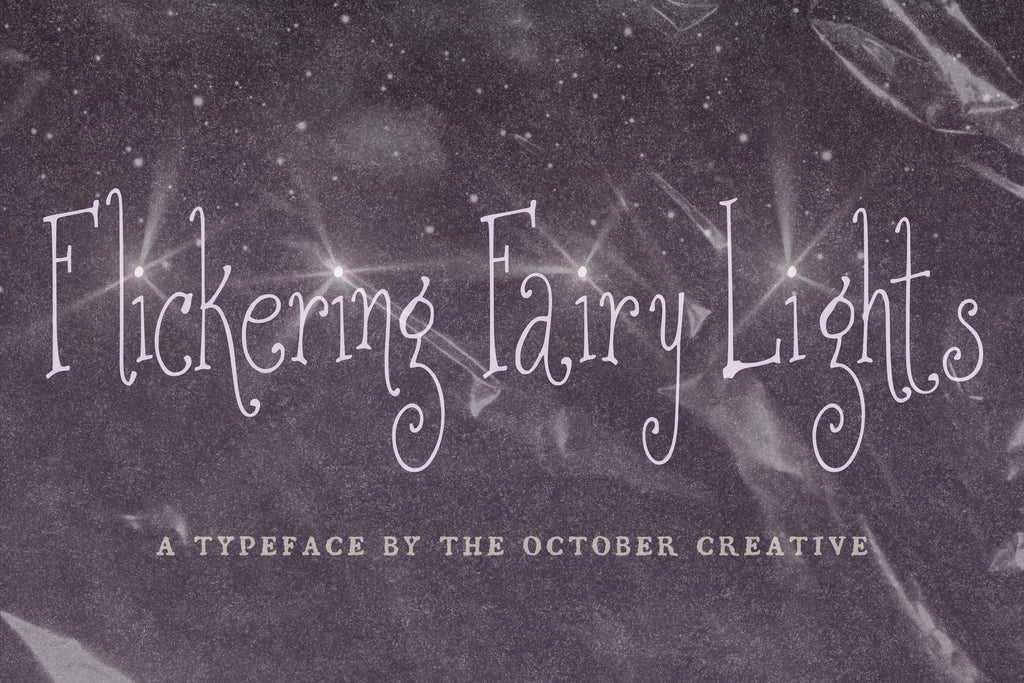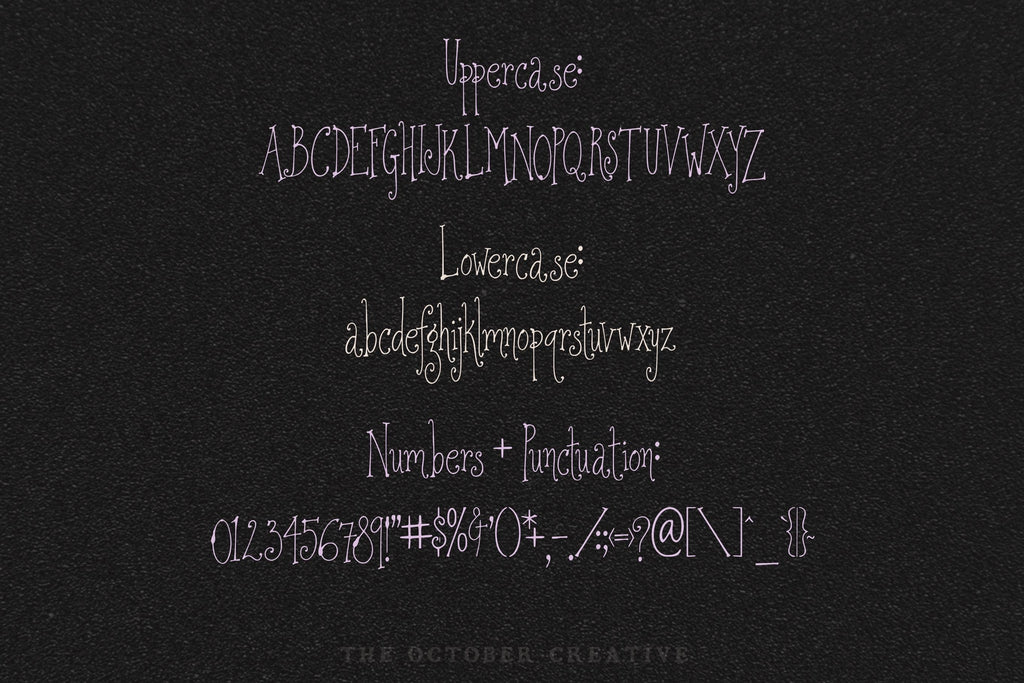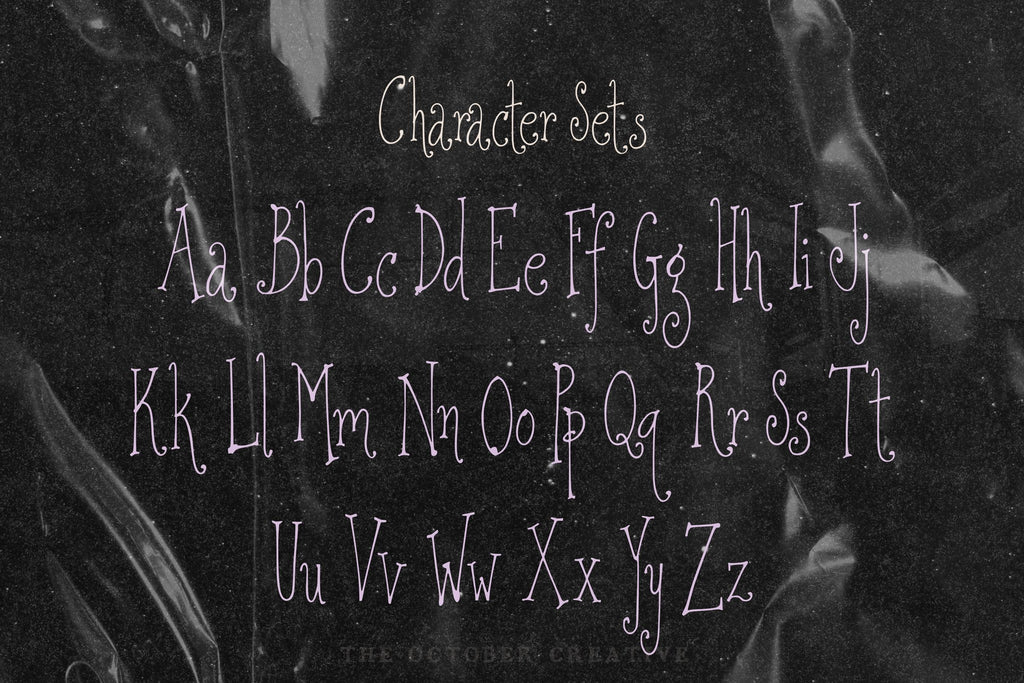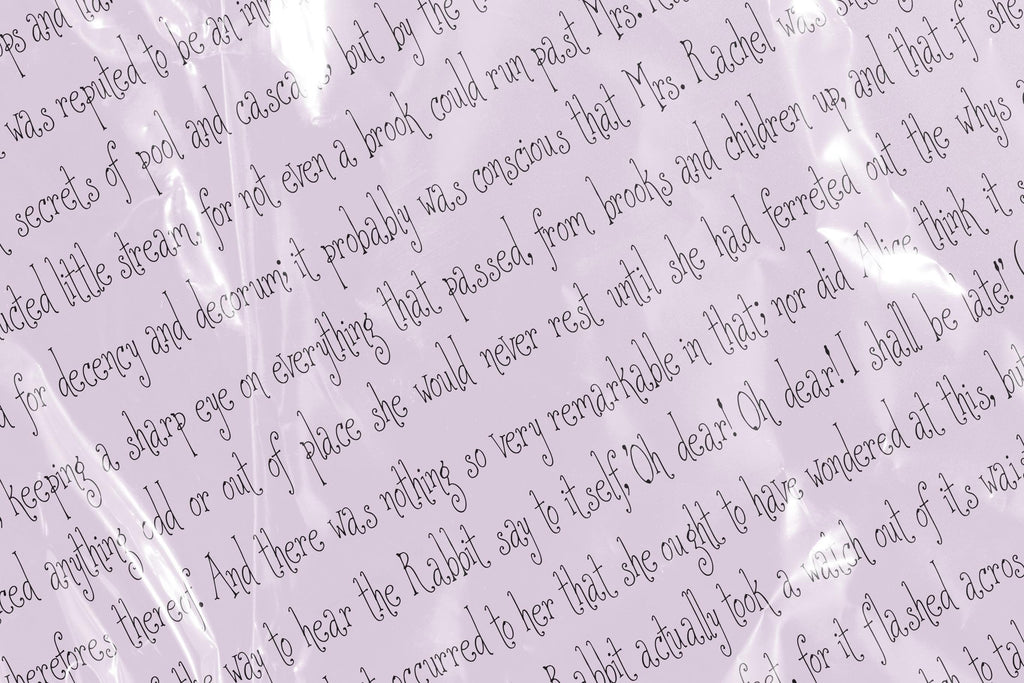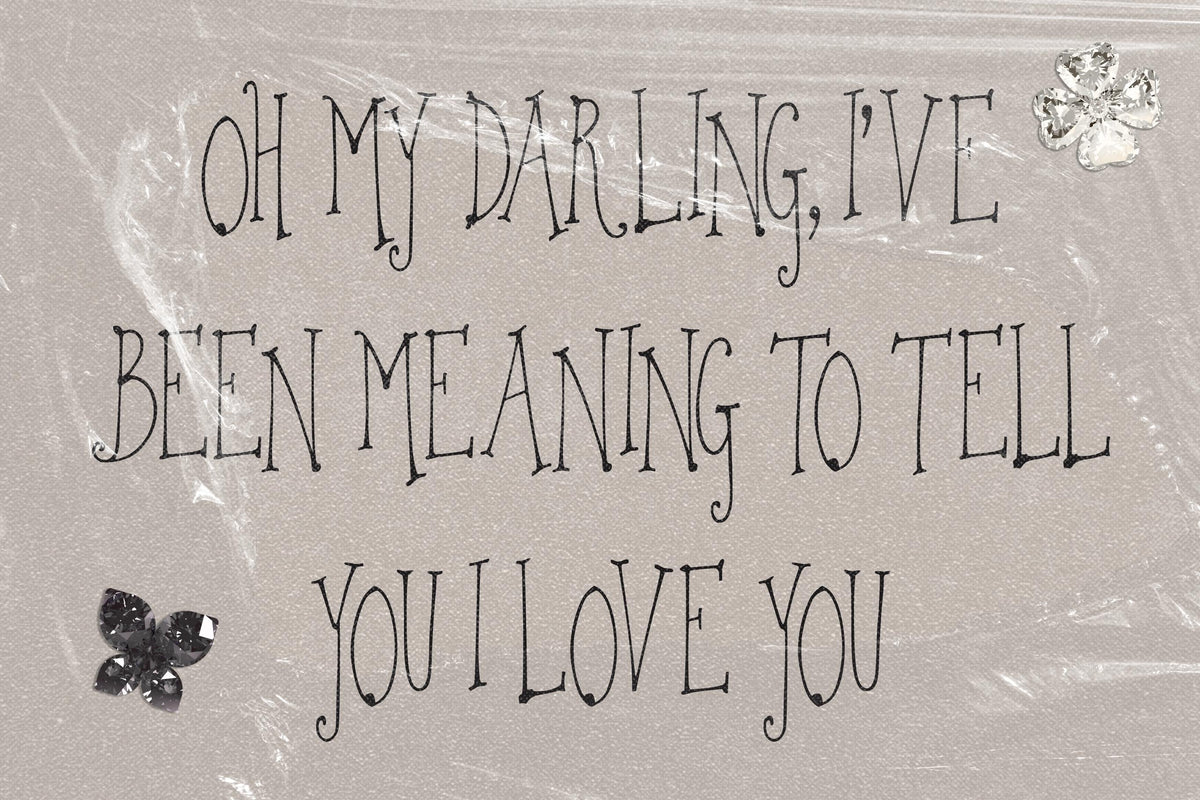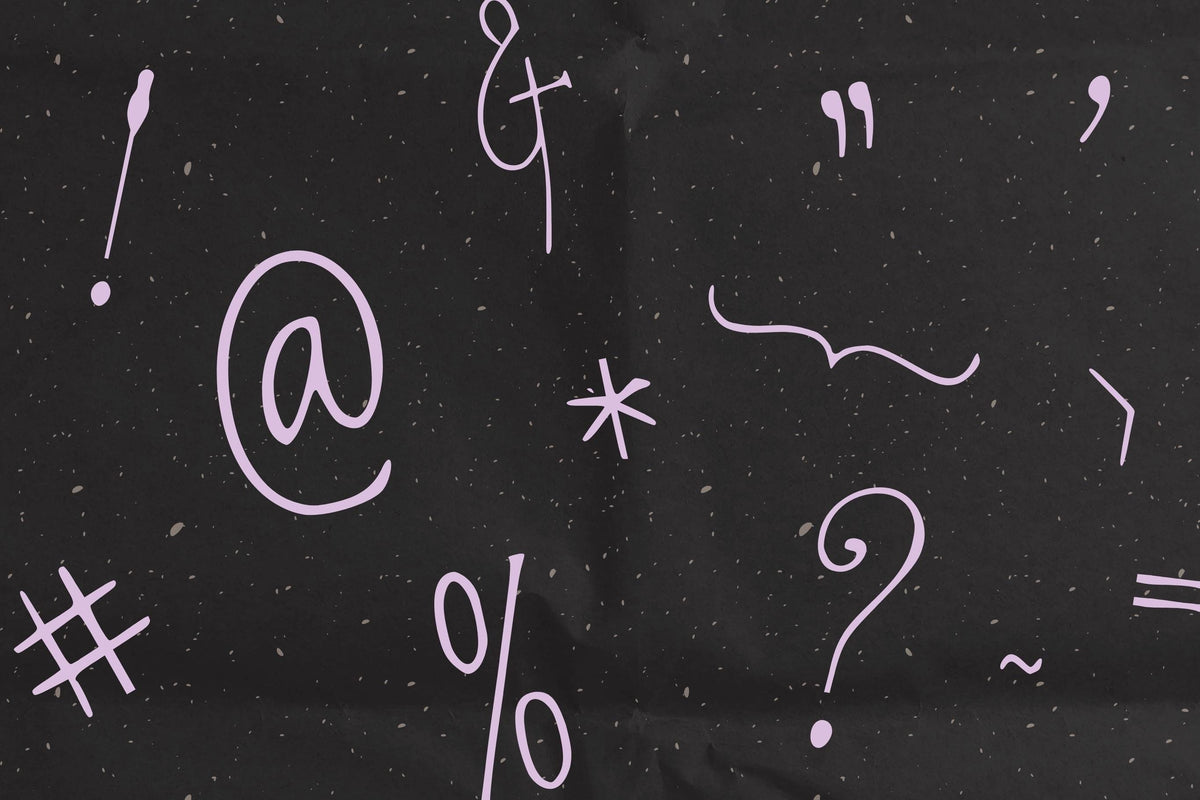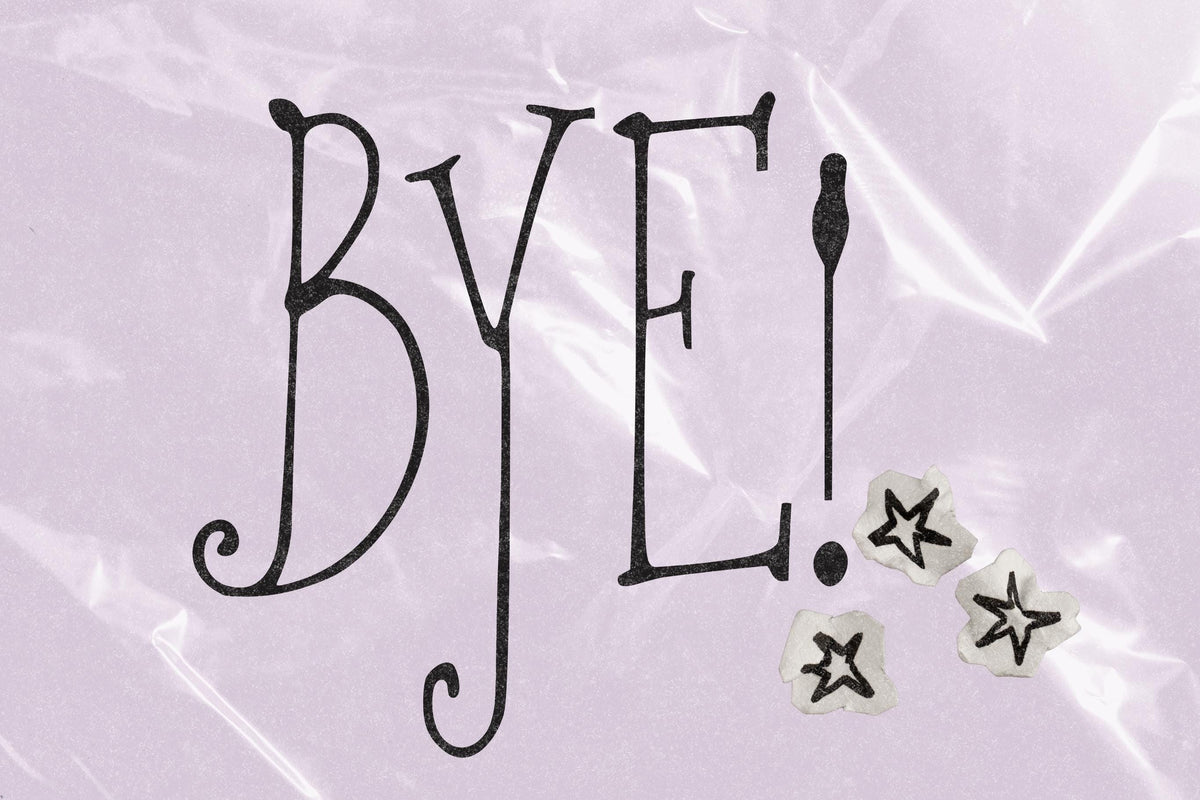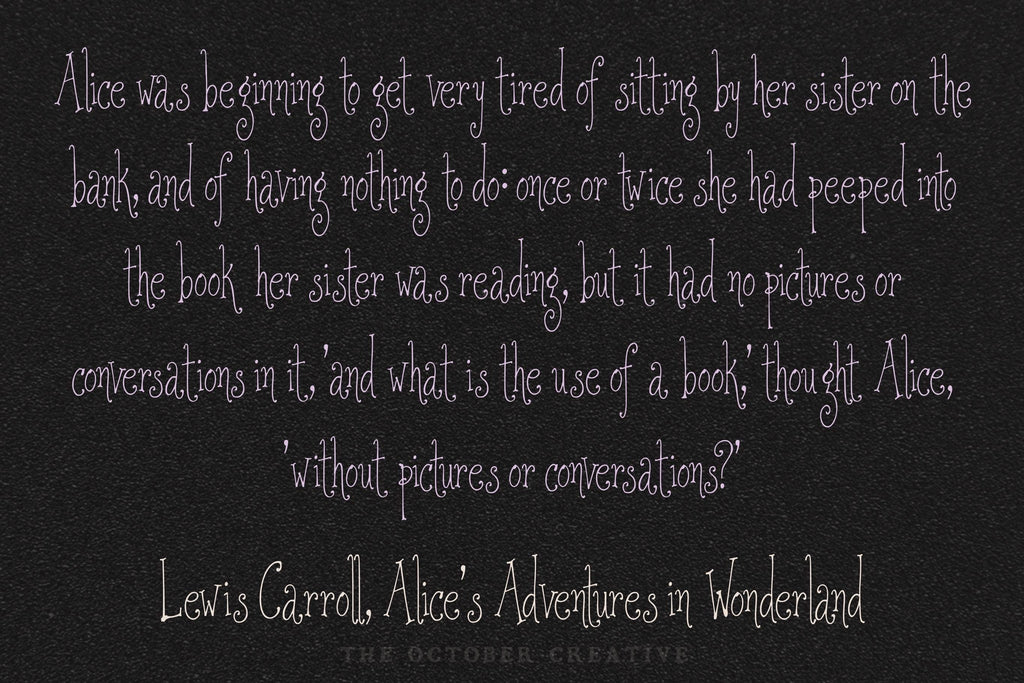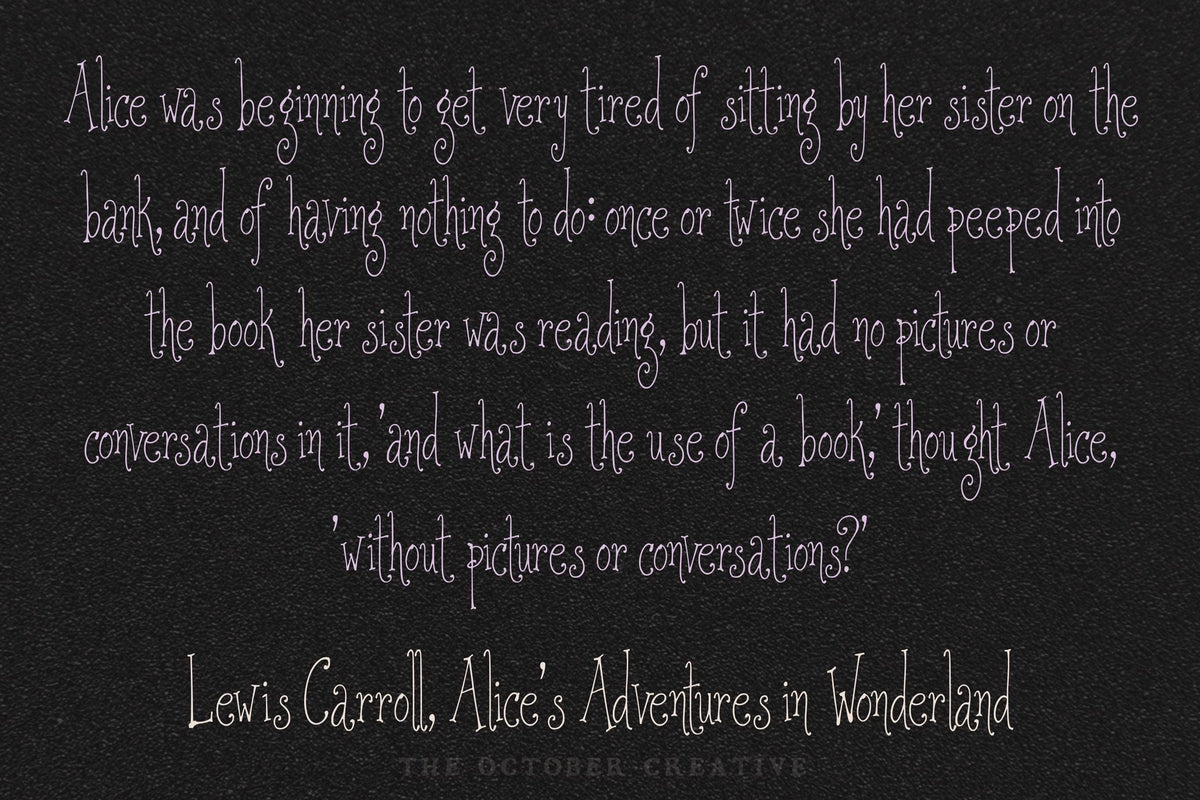
Flickering Fairy Lights Font
Flickering Fairy Lights is a tall, thin whimsical serif with long curled descenders and small swash details. It suits enchanted forest weddings, fairy garden parties, Christmas cards, and storybook titles.
• One style: Flickering Fairy Lights Regular
• Uppercase A to Z, lowercase a to z, numbers 0 to 9, and every standard keyboard punctuation mark and symbol
• Curly quotes and apostrophes, dashes, an ellipsis, and a bullet
• Common accented letters for names, like José, Chloé, Zoë, Renée, and Françoise
• One Regular style, with no alternate characters or ligatures.